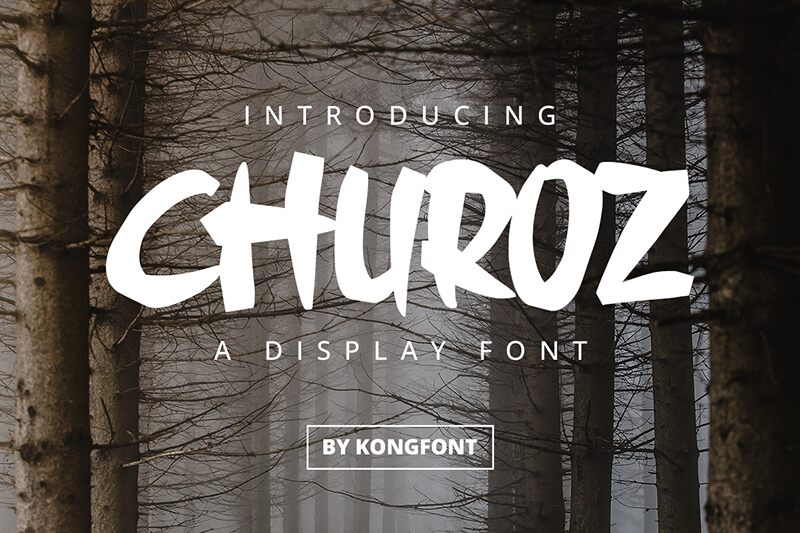
Churoz font by Kong Font is a free brush font with a bold weight. Its untamed, expressive, rugged, and spontaneous style makes it perfect for creating raw designs or simply adding a humanistic touch. Available only in an all-caps set of letters, this thick display typeface is suitable for use in primary displays as well as secondary text.
Use this lovely typeface in posters, digital product designs, websites, applications banners or any kind of advertising. Clothing items such as t-shirts and hoodies can also be decorated with the beautiful letters of Churoz. This unique-looking font cries exceptionally loud when used on packaging materials and branding stationaries.